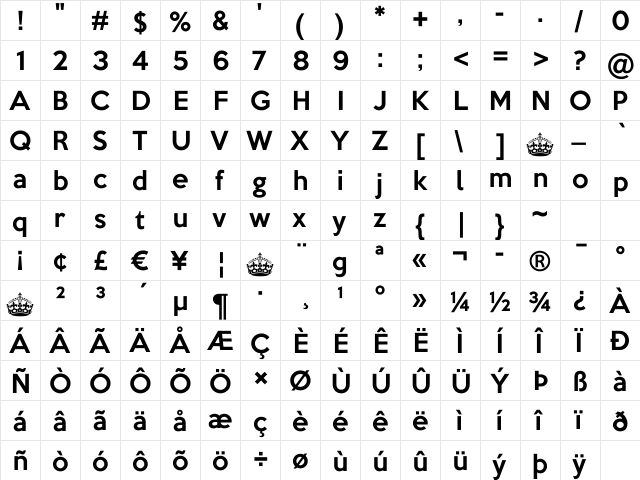
Keep Calm Med Regular Font Preview
Keep Calm Med Regular
| Designer | Keith Bates |
Design Context for Keep Calm Med Typeface
Keep Calm Med offers clean, dependable letterforms without strong stylistic allegiance, making it a practical choice for designers who need flexibility.